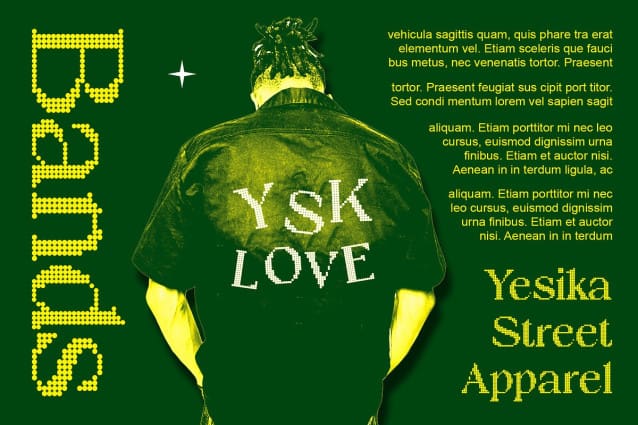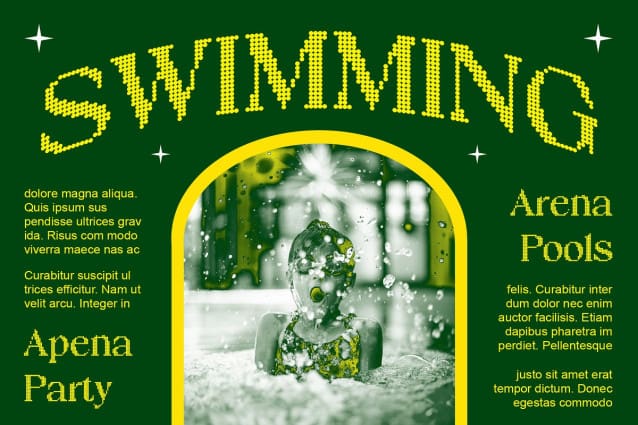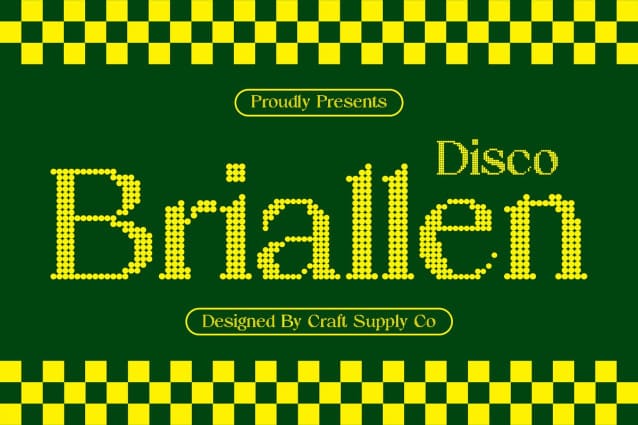
Briallen Disco Font
Briallen Disco Font is a captivating serif font that merges retro charm with vibrant disco vibes. Featuring a distinctive dot pattern, this font is perfect for creating eye-catching displays that bring a playful yet sophisticated touch to your designs.
With its classic serif design and lively dot pattern, Briallen Disco offers a unique twist on traditional fonts. The retro and disco-inspired elements make it ideal for posters, event invitations, and other projects that need a bold and nostalgic look.
Whether you’re designing a poster for a vintage-themed event or creating packaging for a funky product, Briallen Disco is sure to stand out. Its stylish design and unique dot pattern make it perfect for displays that demand attention and exude retro flair.
Despite its playful appearance, Briallen Disco is versatile and easy to use. The font works well in both large and small sizes, making it suitable for a variety of applications, from headlines and banners to logos and more. With its retro charm and disco vibes, Briallen Disco adds a dynamic and eye-catching touch to any design.